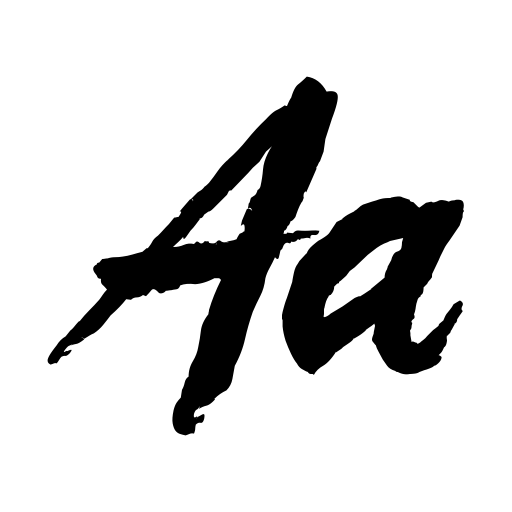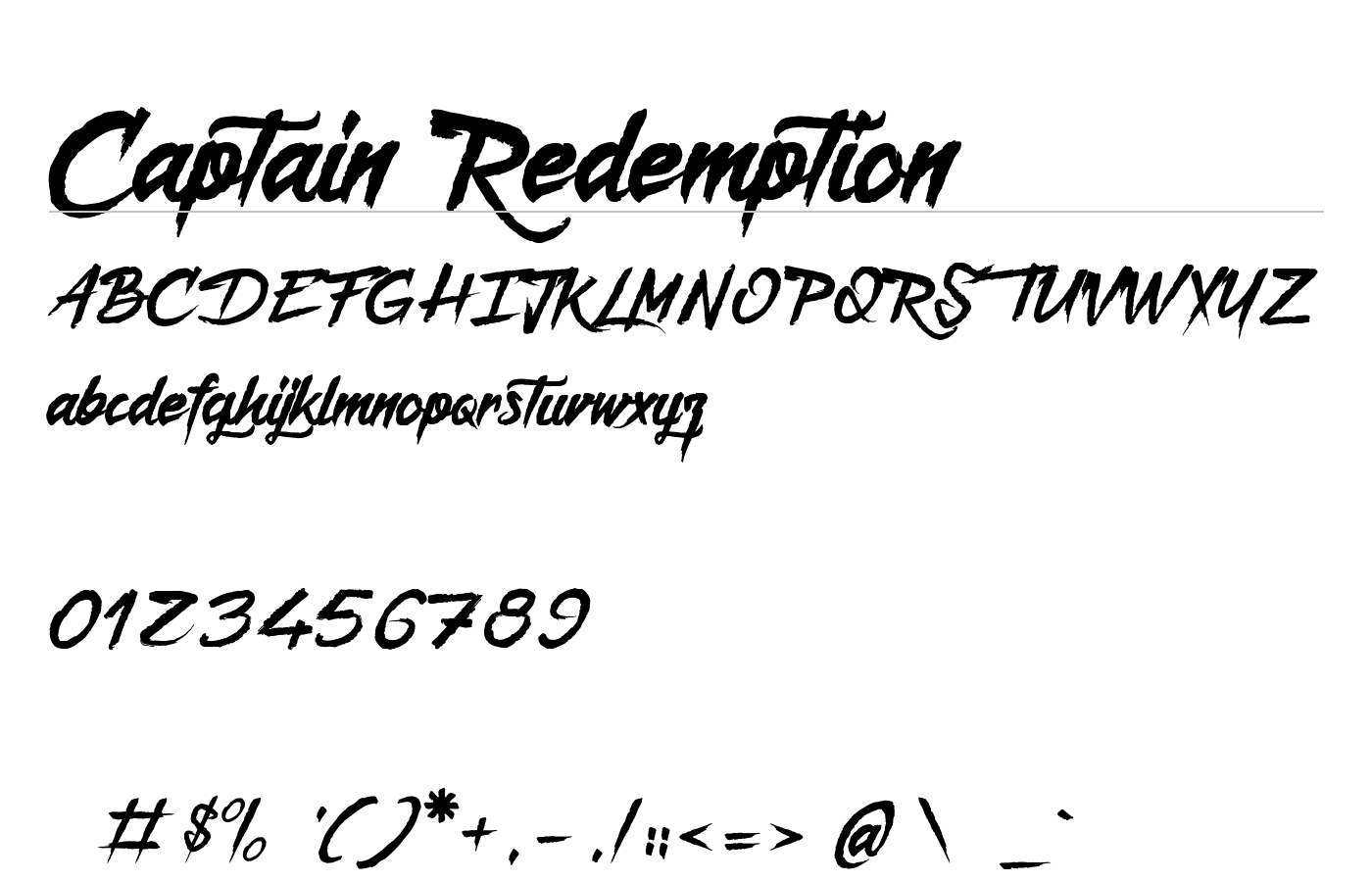
Captain Redemption is a bold, brush-style script font that exudes energy and personality with its rough, hand-painted strokes and dynamic flow. Its edgy, expressive appearance makes it perfect for designs that want to convey creativity and a rebellious spirit, ideal for logos, posters, and branding that seek a strong, artistic impact. This font works best in display contexts where its unique texture and lively character can truly shine.
Captain Redemption Font
About Captain Redemption Font
| Font family | Captain Redemption Font |
| Designer | Octotype |